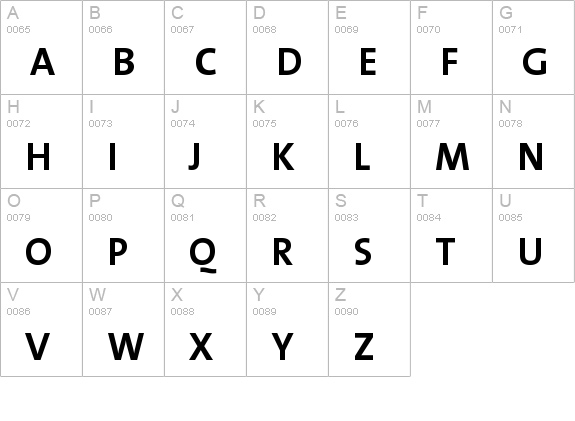
TheMix Bold Plain Font Details
TheMix Bold Plain is a strong, high-contrast variant in the TheMix typeface family \xE2\x80\x94 well suited to headlines, attention-grabbing titles, and strong calls-to-action.
Introducing TheMix Bold Plain, a captivating and versatile font that effortlessly combines boldness with simplicity. This font is a perfect choice for those seeking to make a bold statement while maintaining an air of elegance and sophistication. With its clean lines and strong presence, TheMix Bold Plain commands attention and adds a touch of modernity to any design project. Whether you're designing a logo, creating eye-catching headlines, or crafting stylish invitations, this font is sure to make a lasting impression. TheMix Bold Plain offers a wide range of creative possibilities, allowing you to explore various design styles and concepts. Its bold weight gives your text a strong visual impact, making it stand out effortlessly. Meanwhile, its simplicity ensures readability and legibility across different mediums and sizes. But what truly sets TheMix Bold Plain apart is that it is freely available to download at FontsMarket.com. Yes, you read that right - this exceptional font can be yours at absolutely no cost! Now you can elevate your designs without breaking the bank, thanks to the generosity of FontsMarket.com. So why wait? Download TheMix Bold Plain today and unleash your creativity. Whether you're a professional designer, a student, or simply someone with a passion for beautiful typography, this font is a must-have in your collection. Don't miss the opportunity to captivate your audience with its boldness and simplicity. Get TheMix Bold Plain now and let your designs shine.